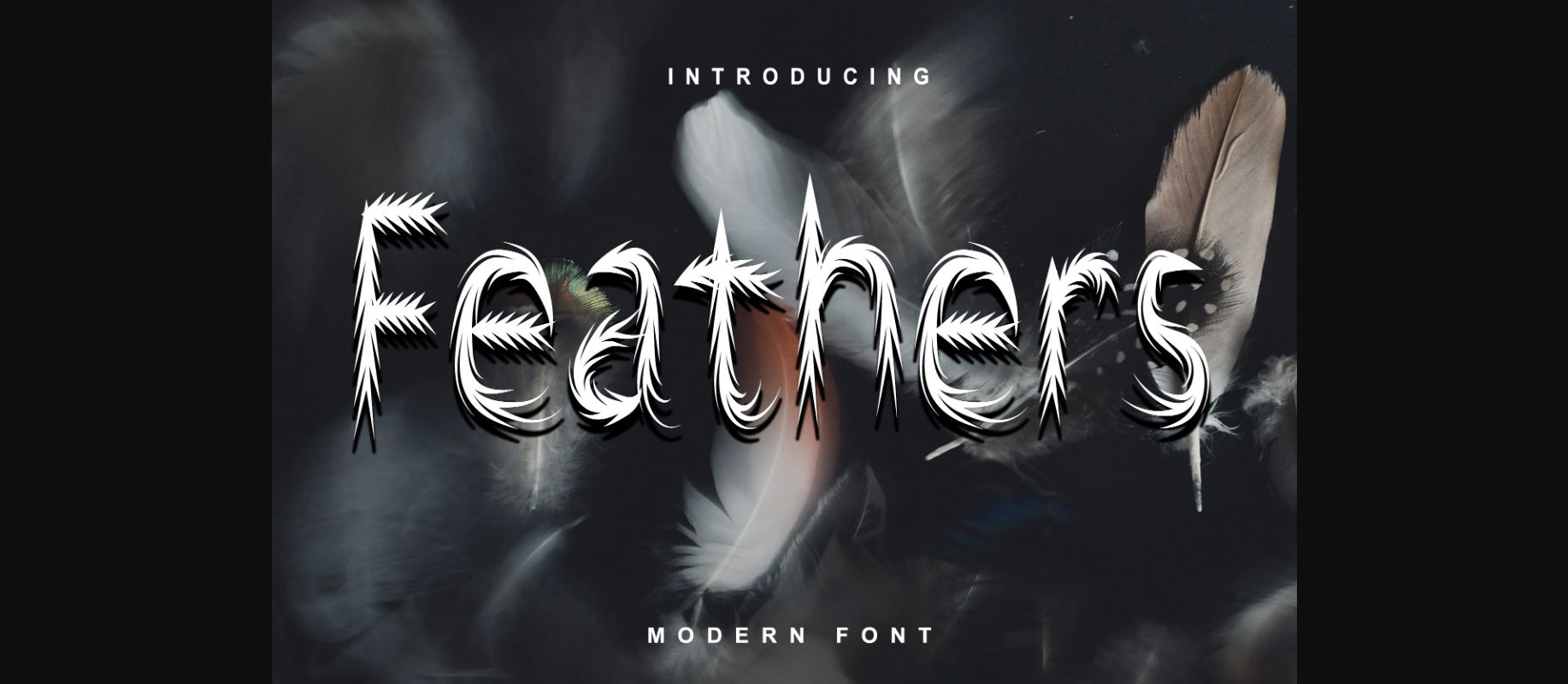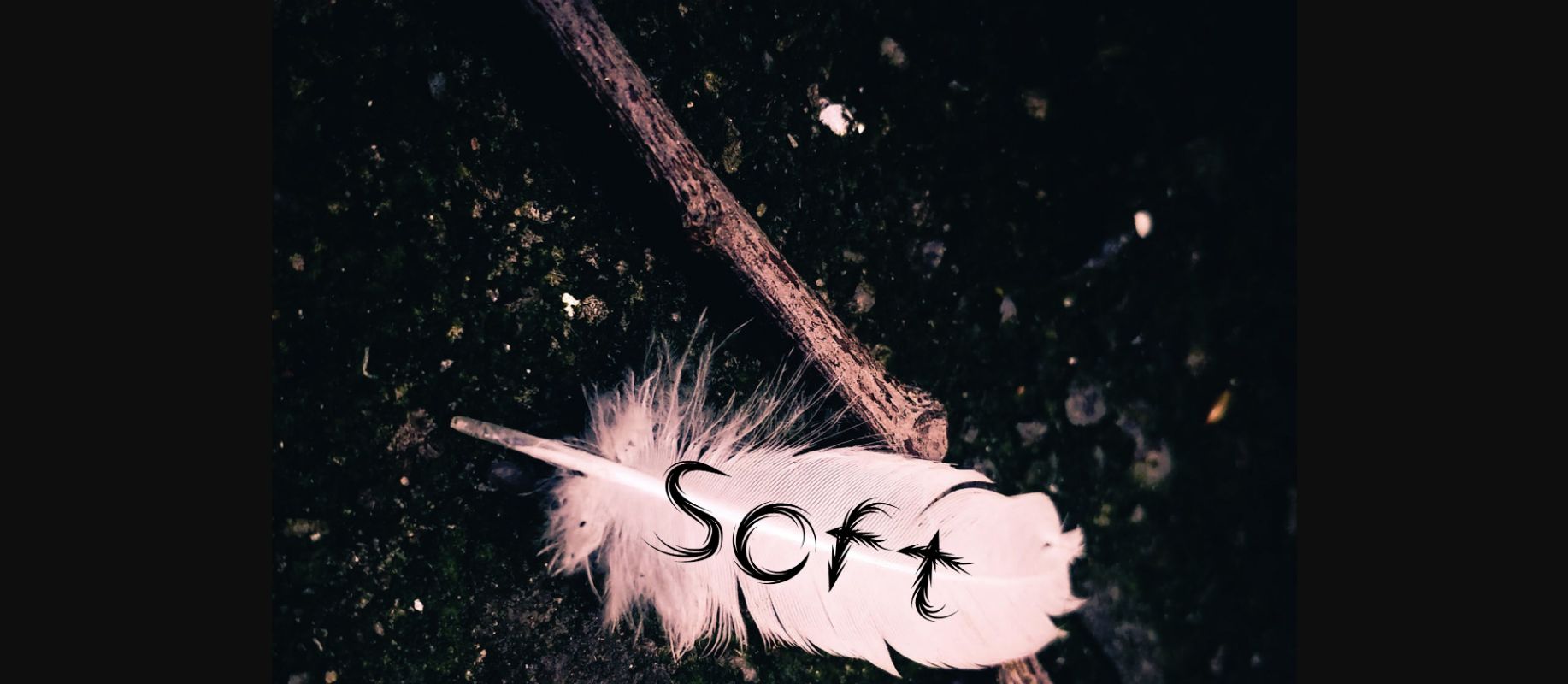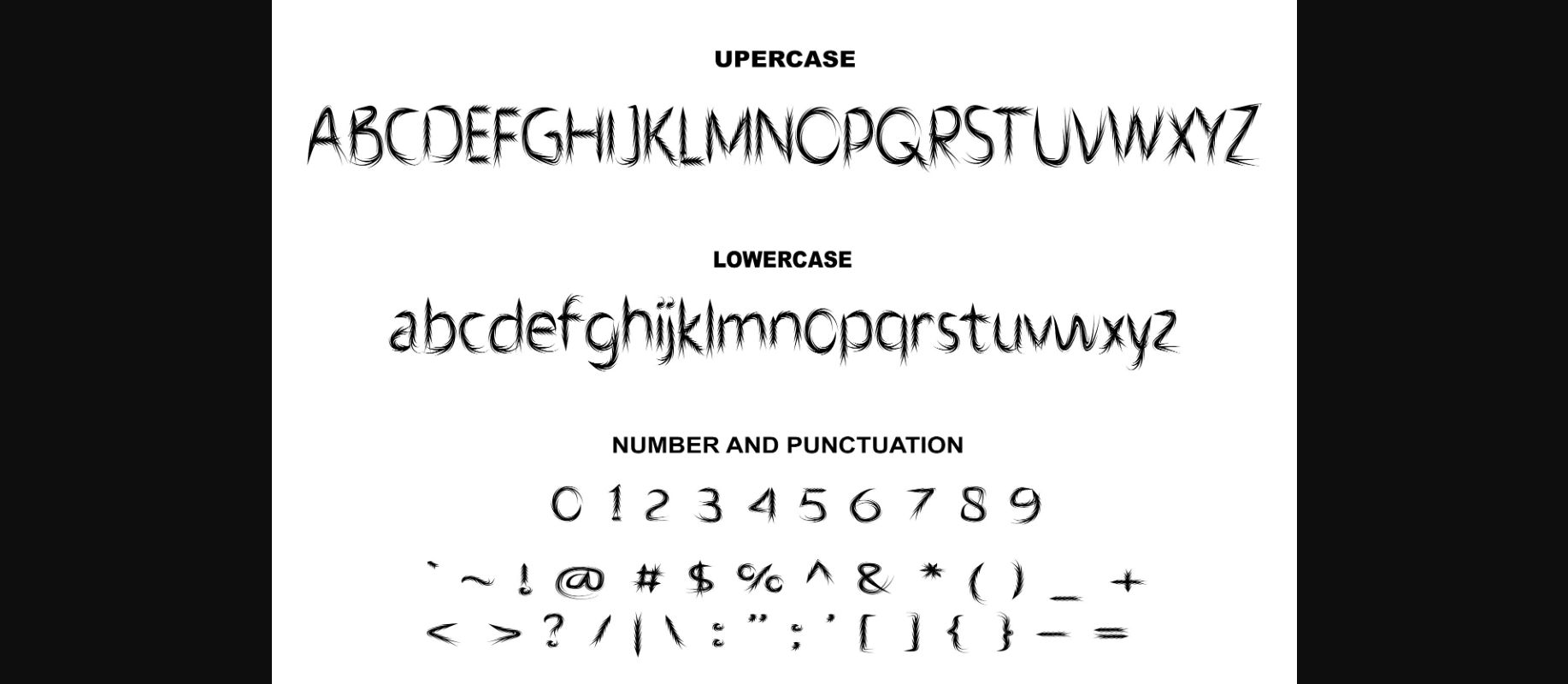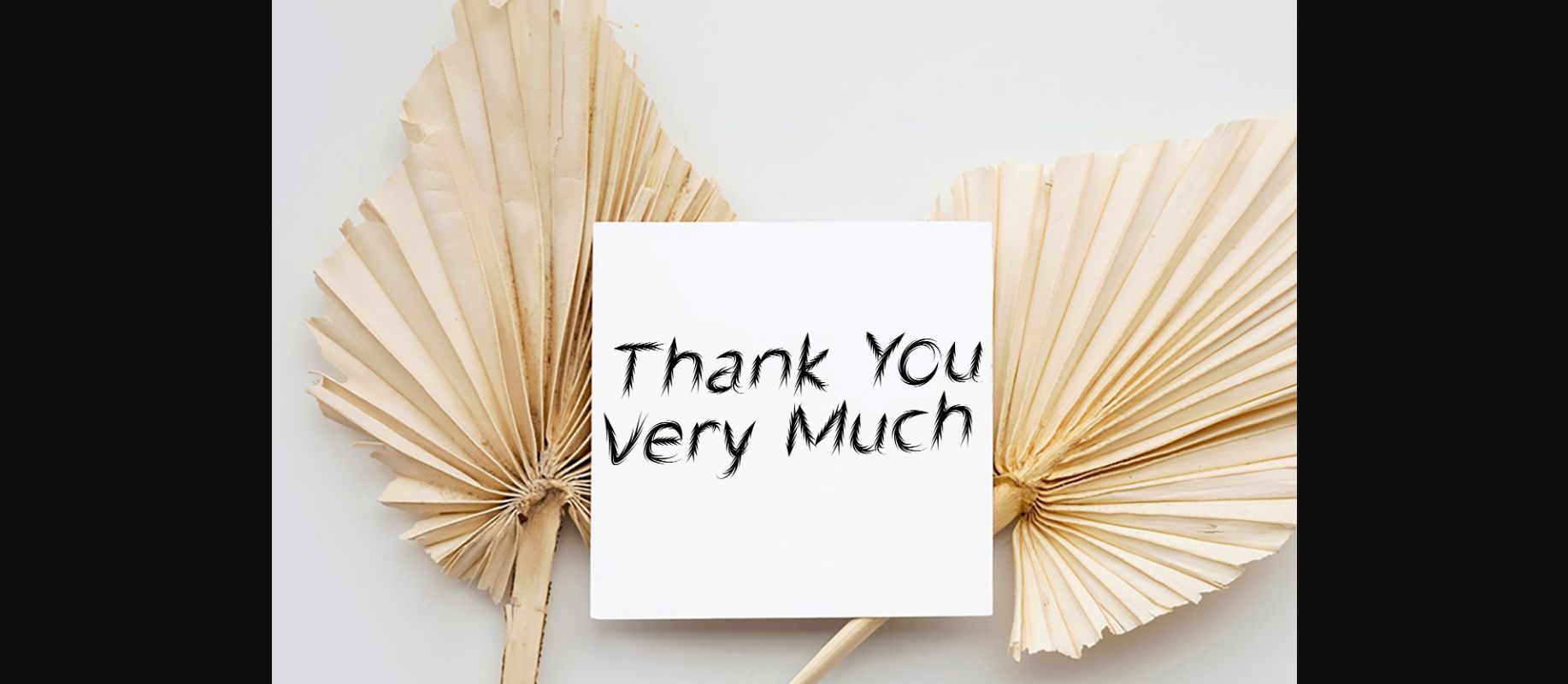
Feathers is a beautiful and delicate decorative font. It will look stunningly beautiful on more exquisite projects that require an elegant, sophisticated touch!